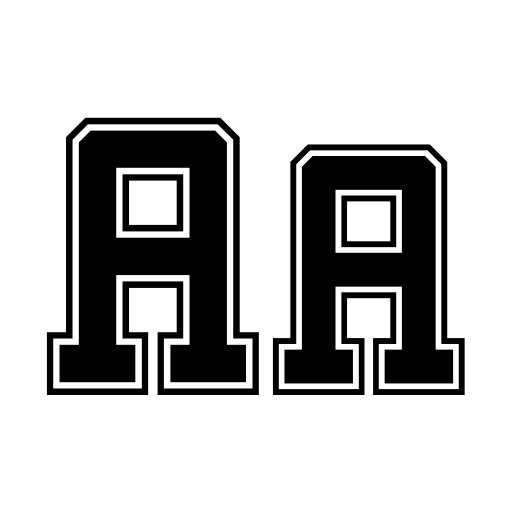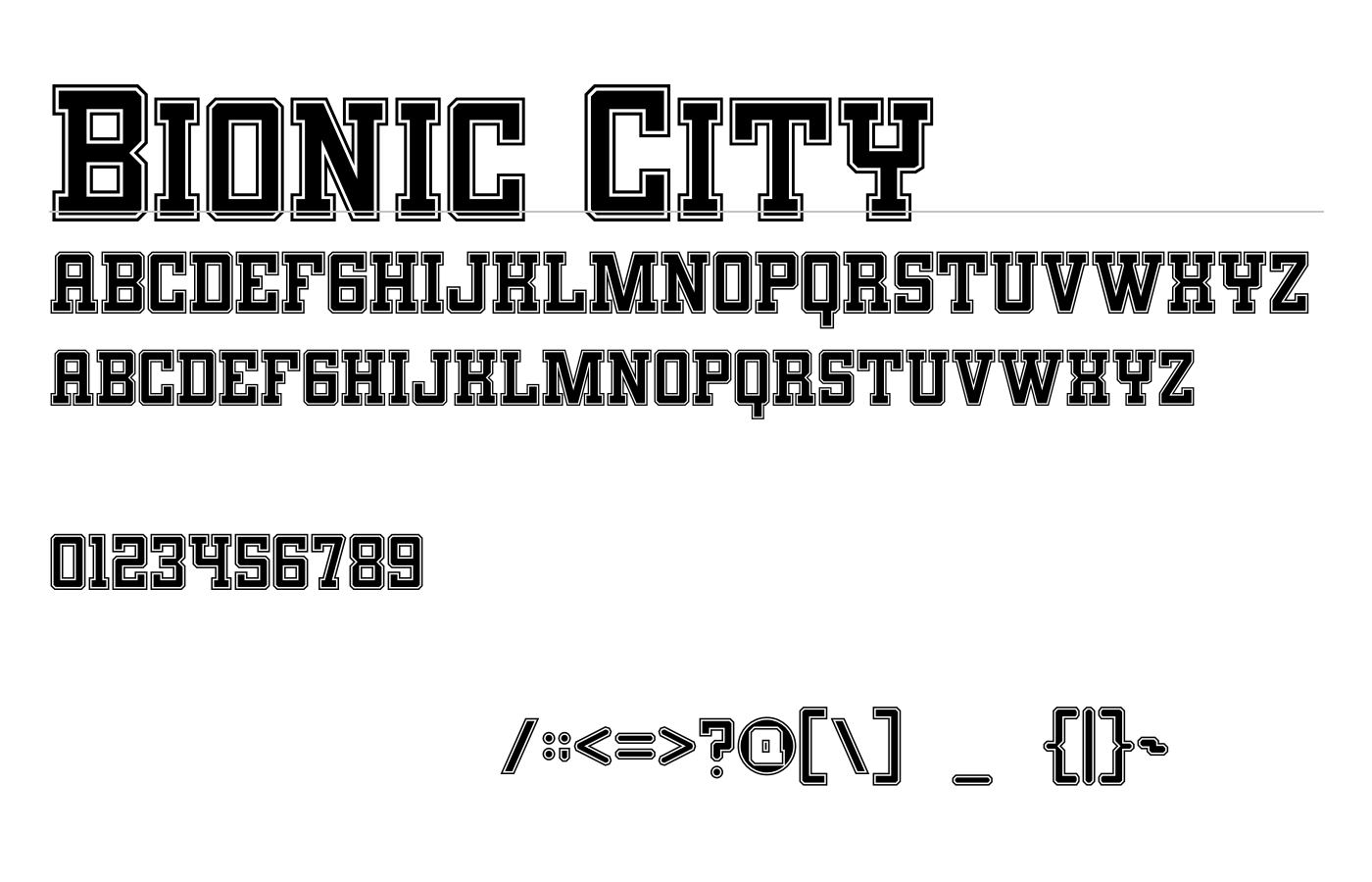
Bionic City is a bold, slab serif display font with a strong, athletic vibe and a layered, outlined design that adds depth and character. Its condensed, uppercase letterforms with thick strokes and sharp, bracketed serifs make it ideal for eye-catching headlines, sports branding, or urban-themed designs. This font communicates energy and confidence, perfect for logos, posters, and other projects needing a powerful, dynamic statement.
Bionic City Font